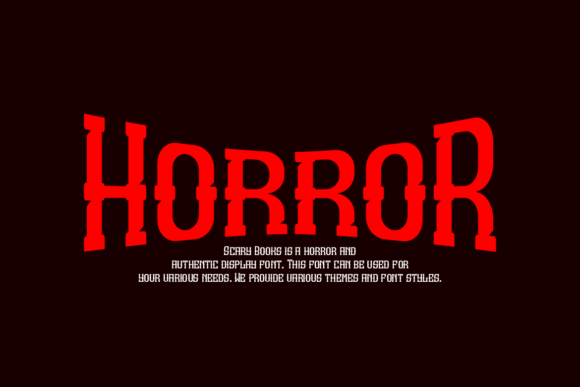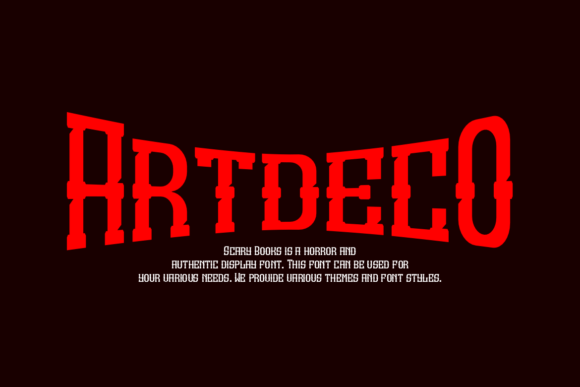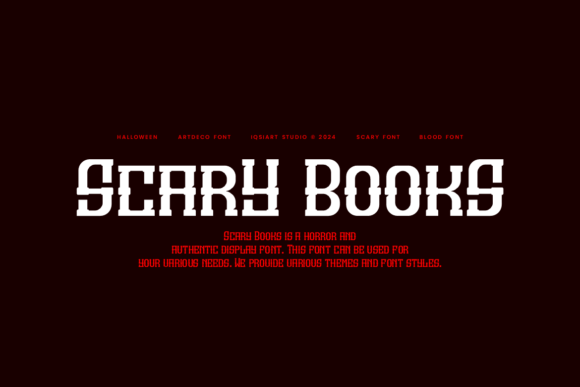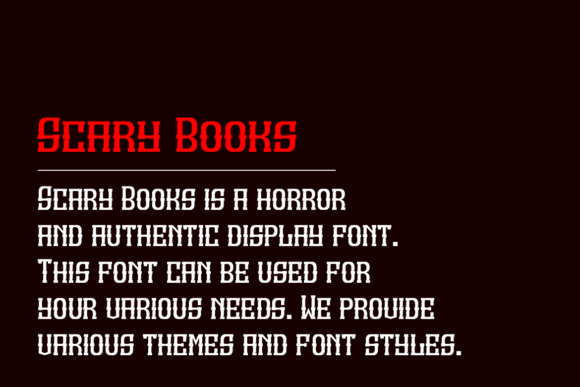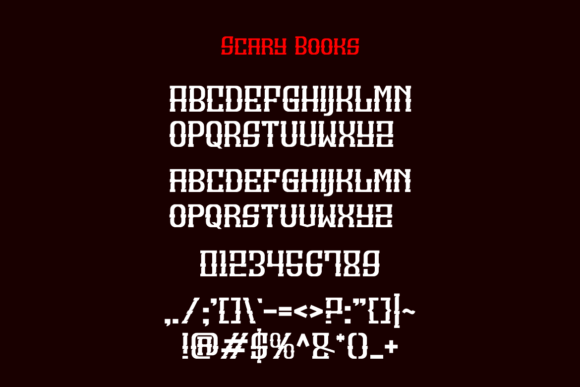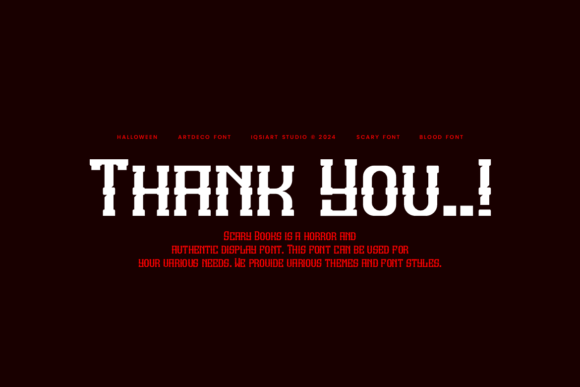
Introduction to Scary Books Font
Scary Books is a spooky and stylish Halloween font with an art deco twist.
Its sharp edges and bold lines give a vintage horror feel, perfect for creepy titles, posters, or decorations Ideal for creating a haunted, old-fashioned look with a modern flair.